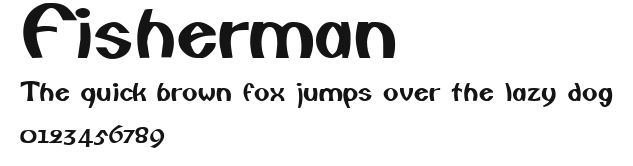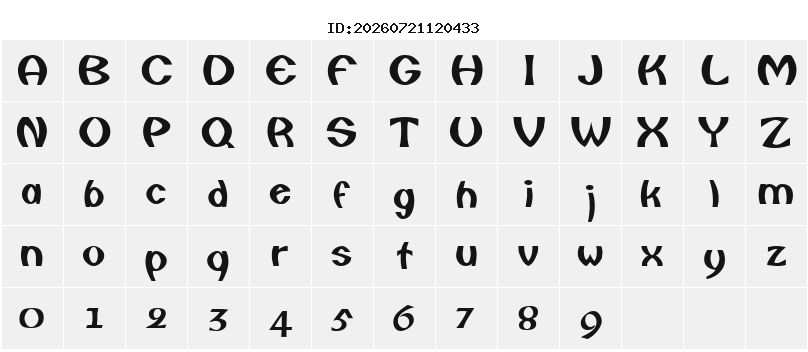
Fisherman Preview
• Font Name: Fisherman
• Full Font Name: Fisherman
About Fisherman.ttf
Fisherman.ttf is a modern, elegant sans-serif font designed for ultimate readability and visual harmony. Perfect for branding, headlines, web design, and print materials.